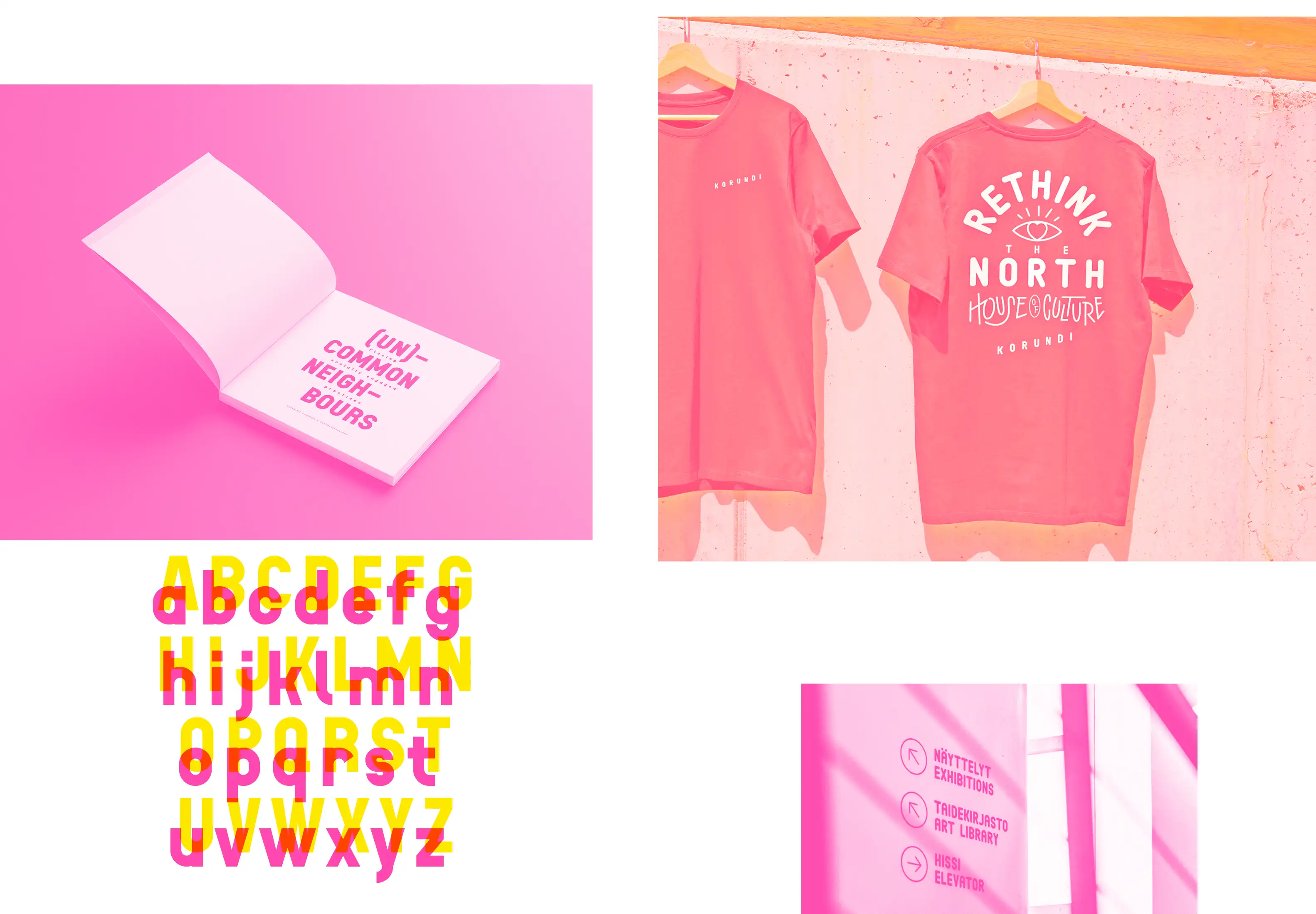
Juho Hiilivirta
Letters carved in the snow turn the icy landscape into a canvas. The surroundings frame and interact with the letters. Snow becomes both a surface and a storyteller. Light, shadow, snow, wind, and a rabbit take their role in the composition.
In snow, nothing lasts. That’s what makes the act of carving meaningful. When the snow melts, the form is gone. I wanted to document and design the full character set – or at least the minimum number of letters needed.
I designed letters that are easy to carve with a saw and rope. Each letter is nearly two meters tall. Grid based letters are structured and strong. They hold their form in the snow. Working on them is delicate because a single misstep can break the letter or the untouched snow.
This project brings words into nature. The landscape shifts, and the letters disappear – until they are carved again.
While working with the rope and saw, I didn’t think these forms would ever evolve into anything beyond the snow. They were inspirations, temporary, tied to the moment. And yet, they found new places to exist.
I have used this concept font as a foundation for few projects. It appears in books, posters, clothes, wall signs, online and in many print materials. The font has been adjusted when needed to better suit each context.
Typeface: Skeleton
Designer: Juho Hiilivirta